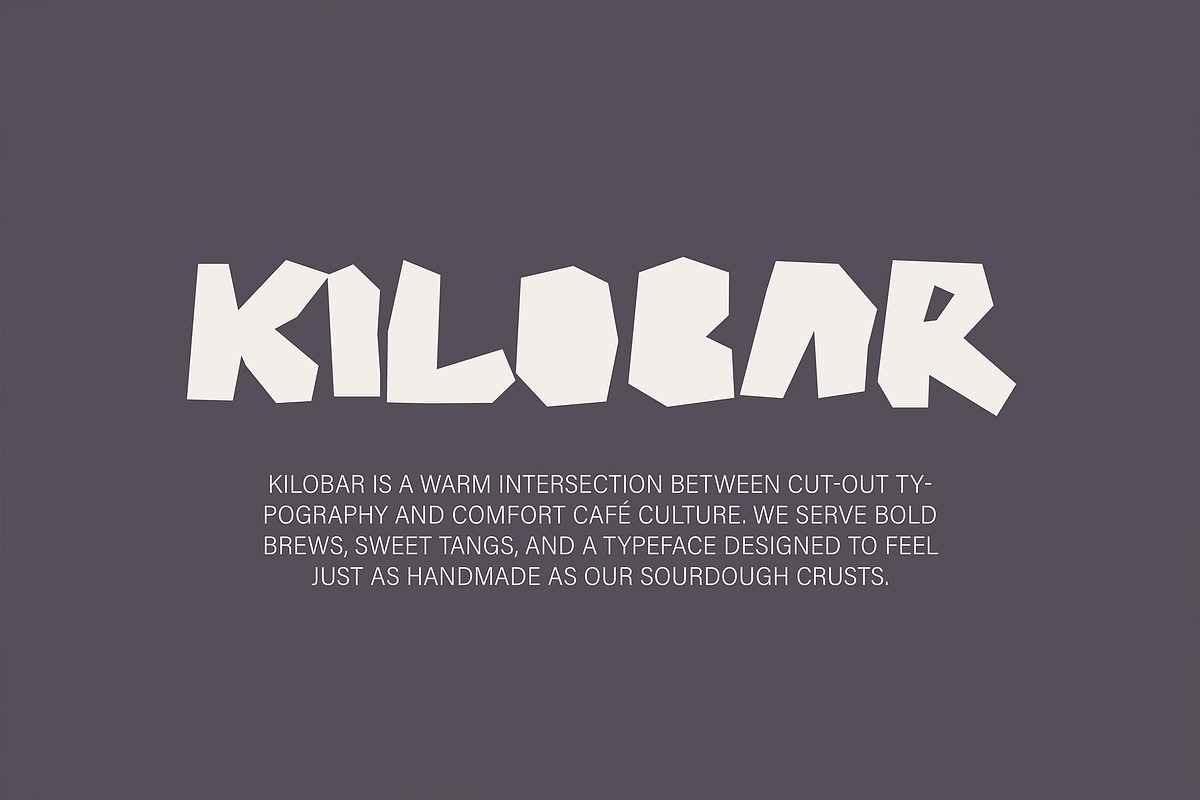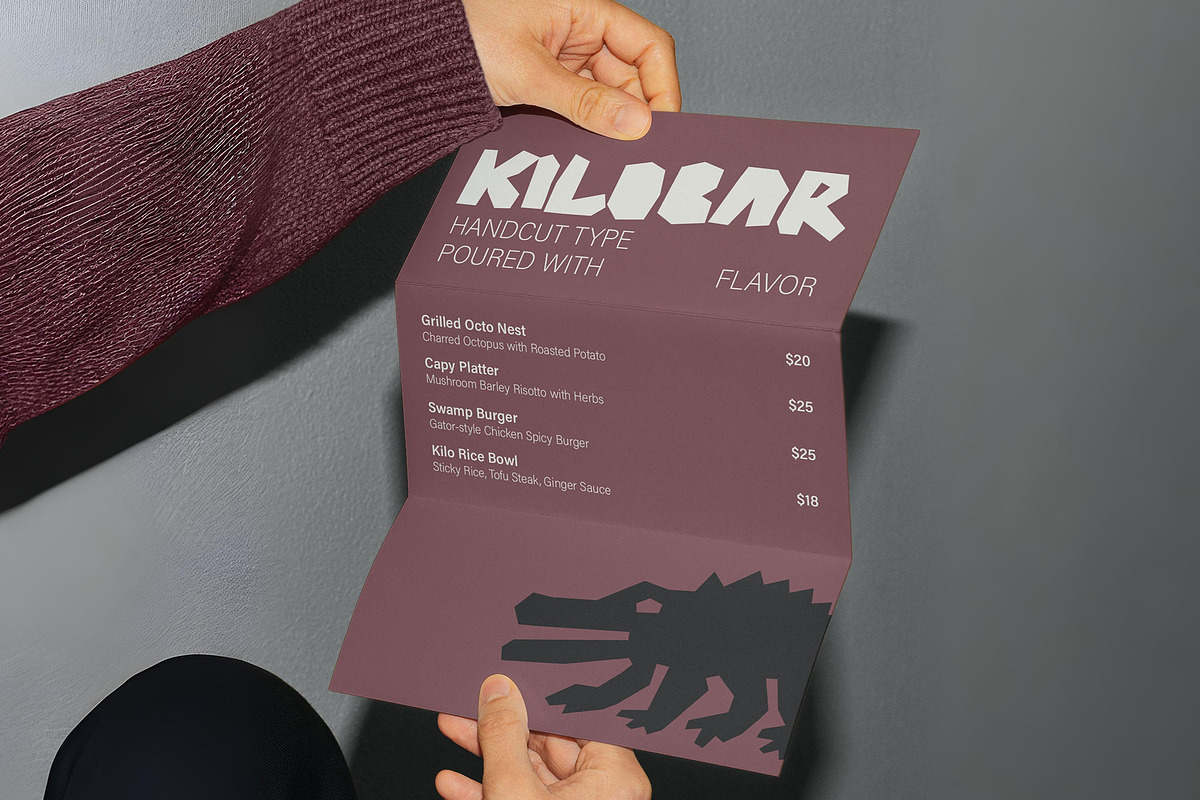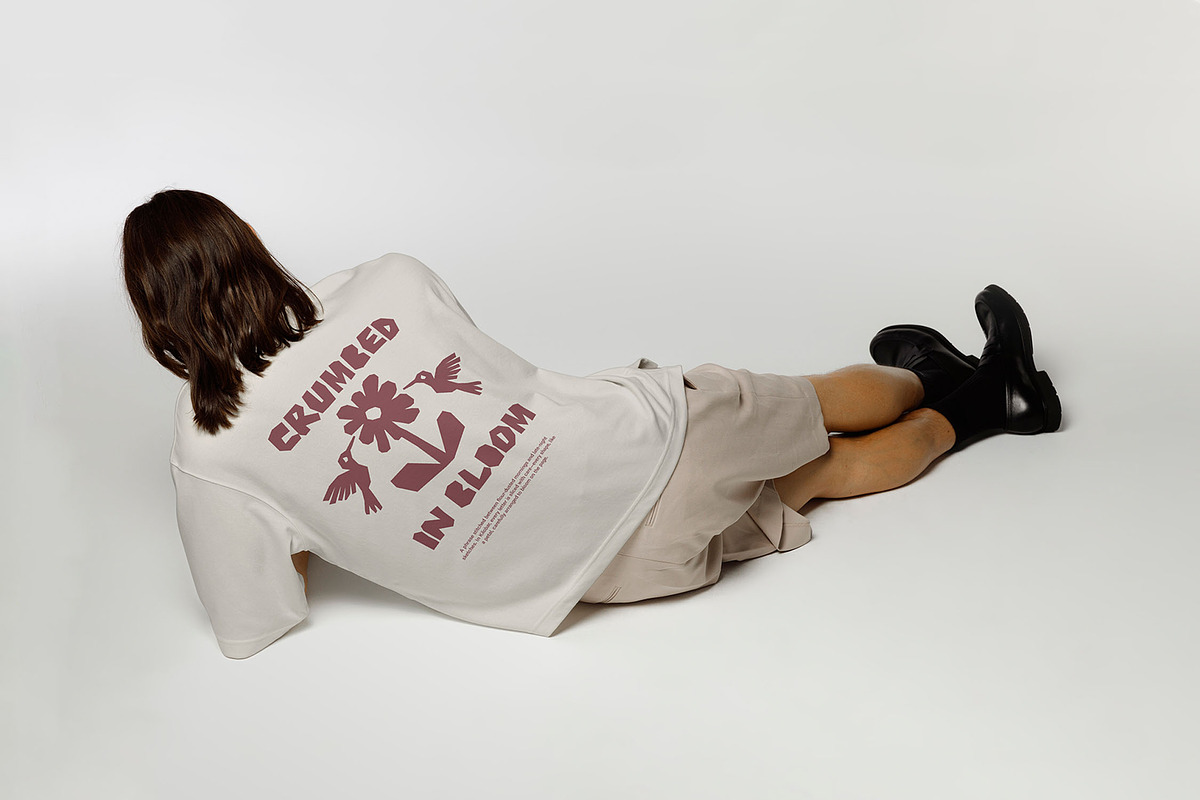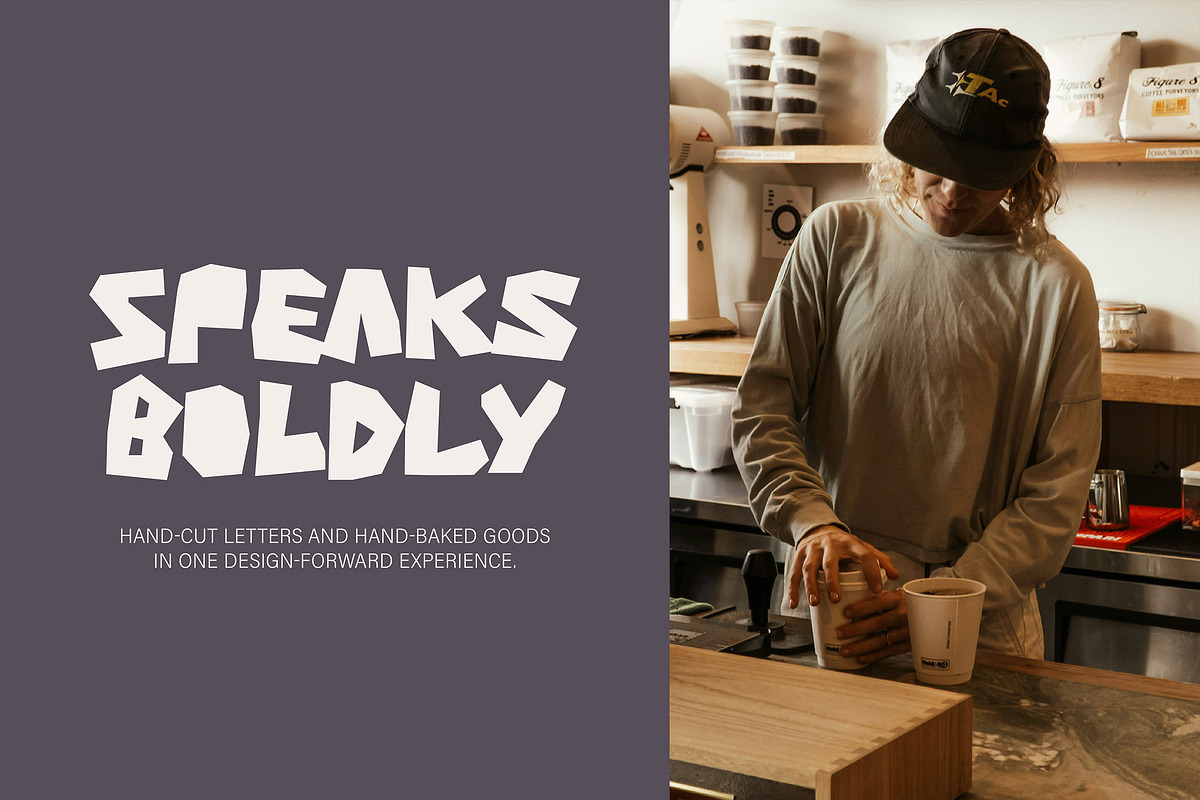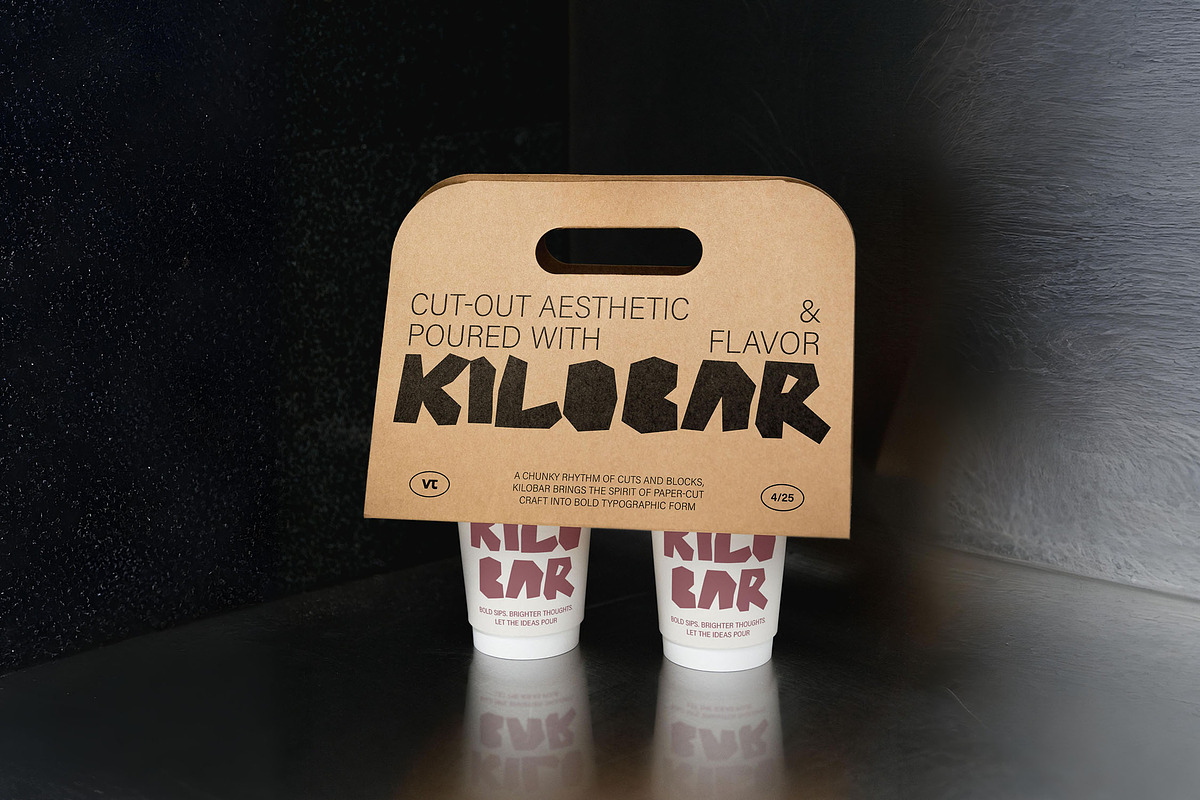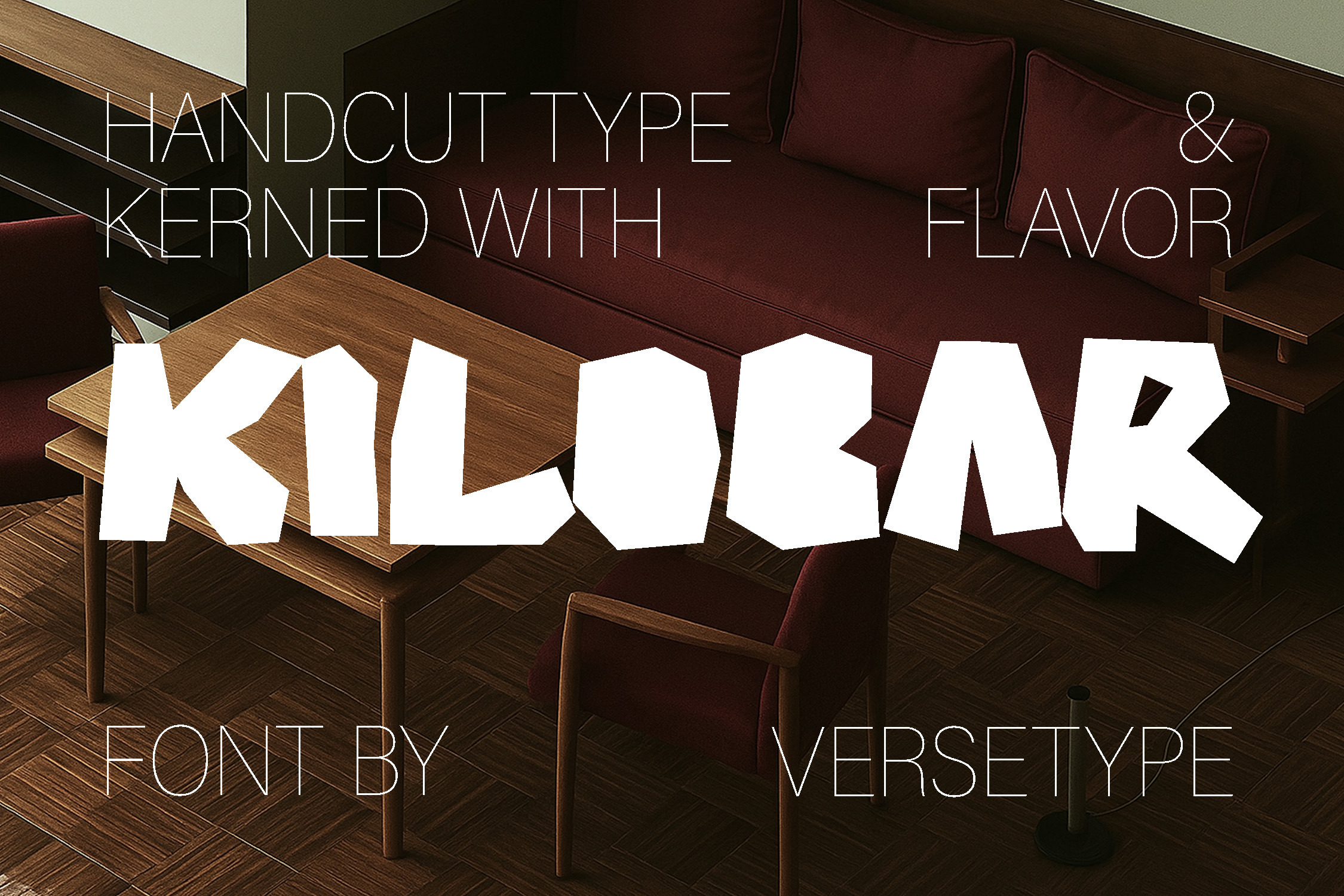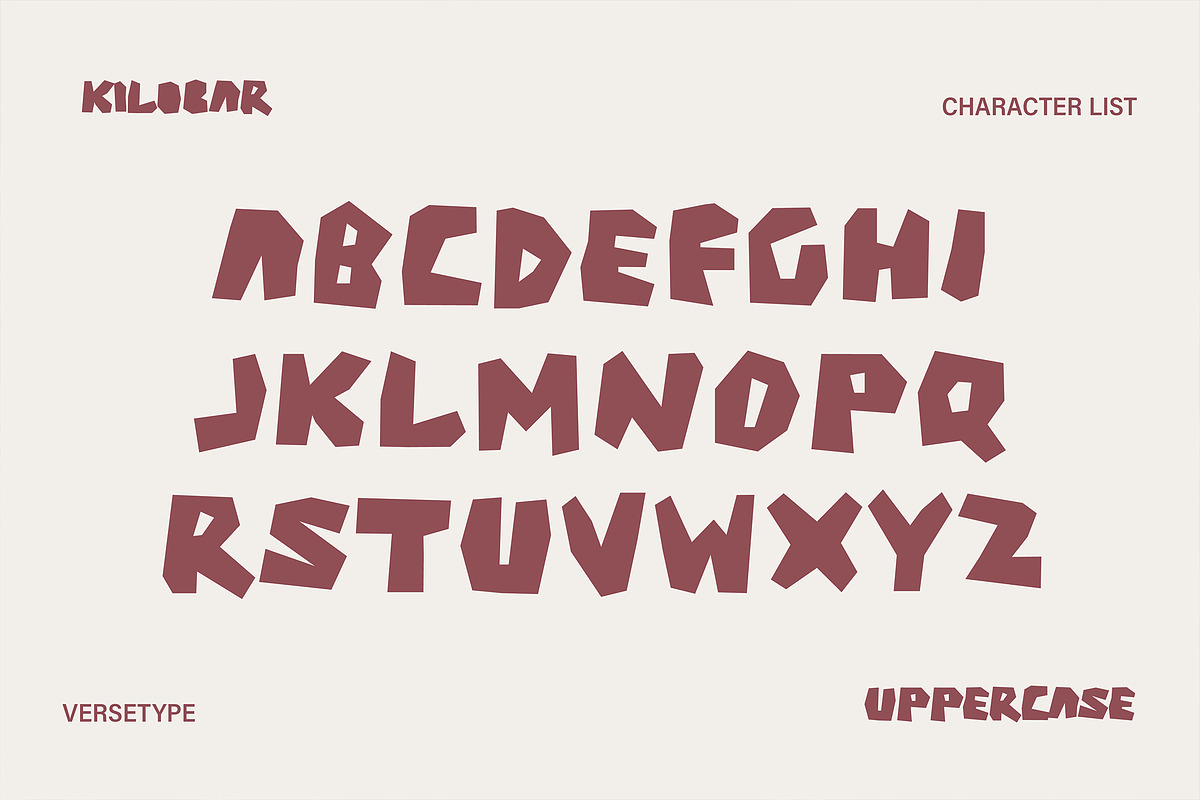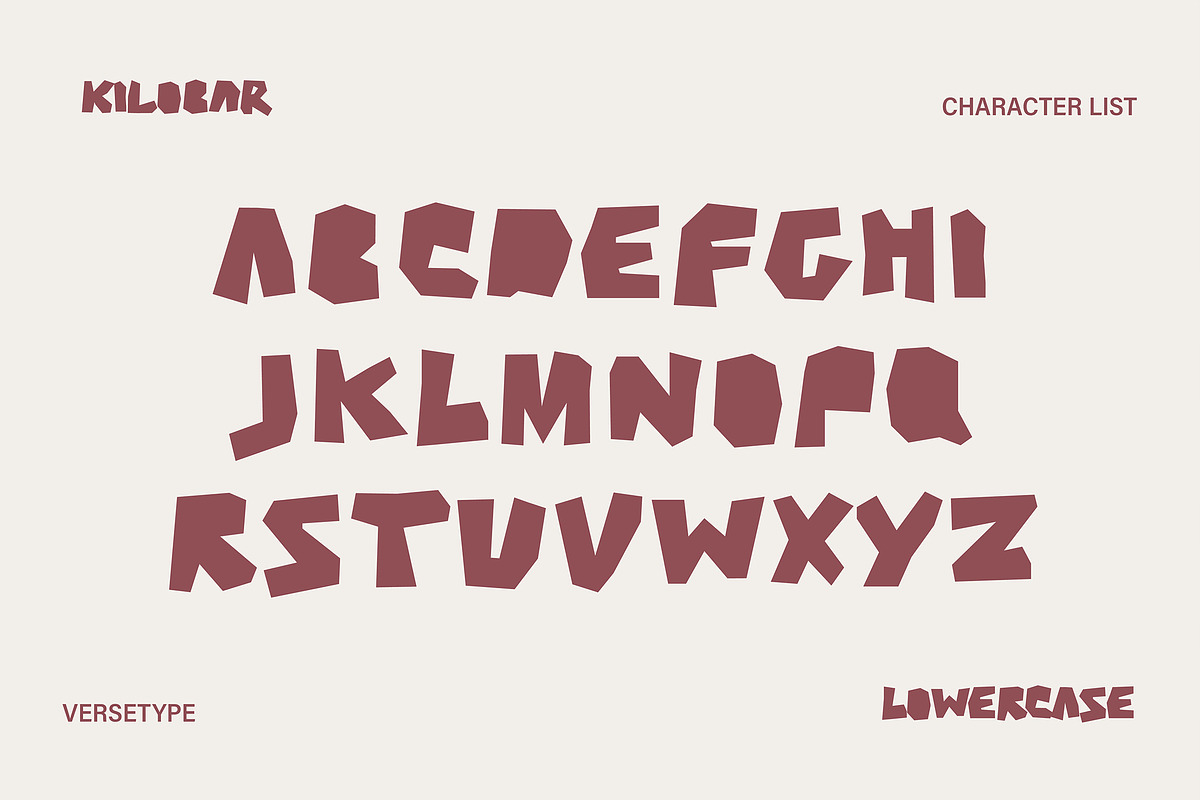
Kilobar - Papercut Font
Kilobar is a bold and characterful display typeface inspired by the tactile charm of paper cutouts and the warmth of neighborhood cafés. Built with a striking contrast between solid lowercase forms and hollow uppercase glyphs, Kilobar brings a hand-crafted personality into every letter. It carries a visual language that feels both structured and spontaneous—evoking the energy of independent coffee shops, artisanal packaging, and experimental print design. Each glyph is carefully shaped to offer visual impact without sacrificing rhythm or legibility, making it ideal for bold typographic statements.
Designed for creative minds who want their work to feel human, textured, and inviting, Kilobar excels in applications such as branding, logo design, editorial headlines, posters, and cultural events. Whether paired with expressive illustrations or standing confidently on its own, Kilobar offers designers a rich typographic flavor—one that’s both contemporary and delightfully imperfect. Bring your layouts to life with a font that feels brewed, baked, and born to stand out.